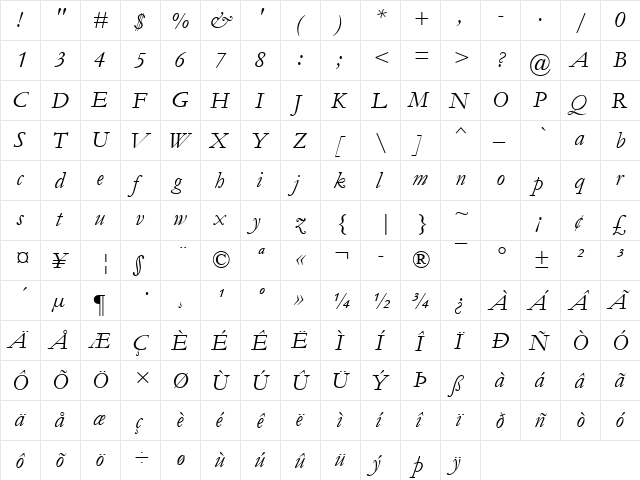
Garamond Italic Font Preview
Garamond Italic
Garamond Italic Font Details
| Designer | Claude Garamond |
Design Context for Garamond Typeface
Garamond takes a measured approach to typography — its balanced proportions and neutral character make it a reliable workhorse for both digital and print work. Its italic angle brings a sense of urgency and motion to the letterforms.
Pro Tip: Use Garamond for emphasis, pull quotes, and subheadings where its slanted energy can add rhythm to the layout.